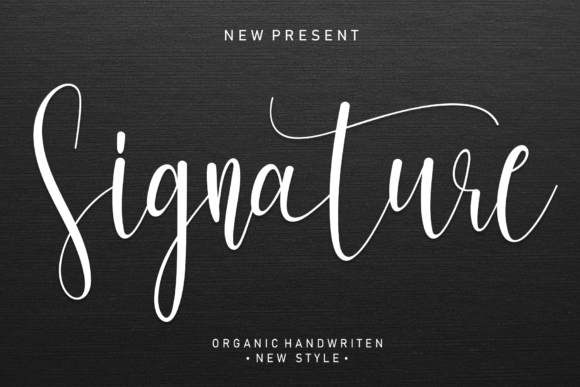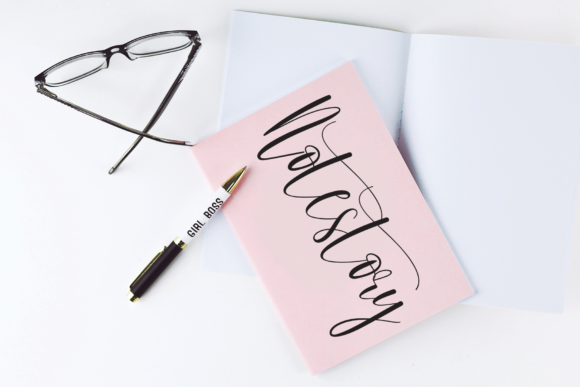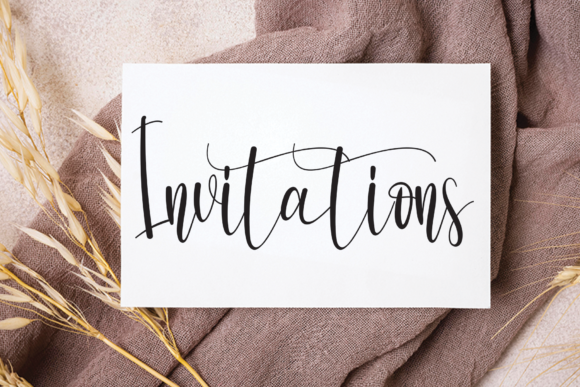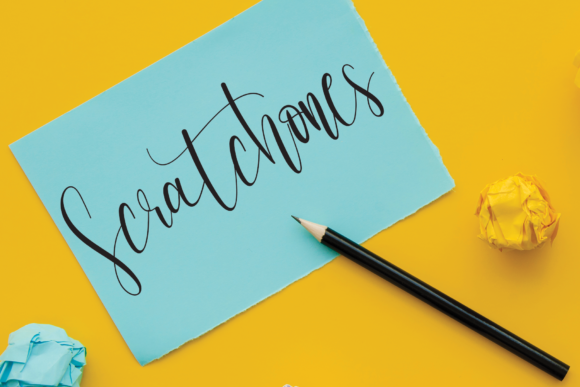
Signature is a handwritten signature style font. This chic, stylish font features an elegant, casual look like handwriting, making it perfect for a signature style logo! Signature script is perfect for logos, branding, cosmetics, website design, magazines, quotes, and more.